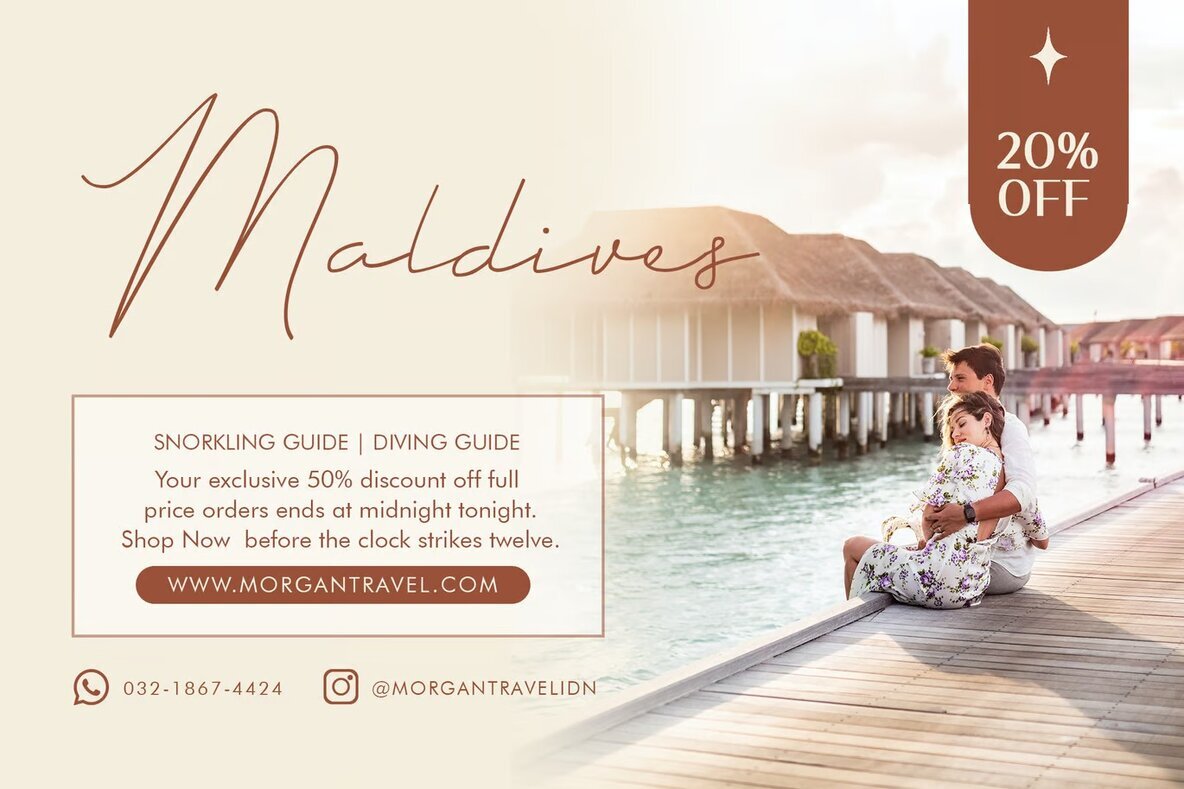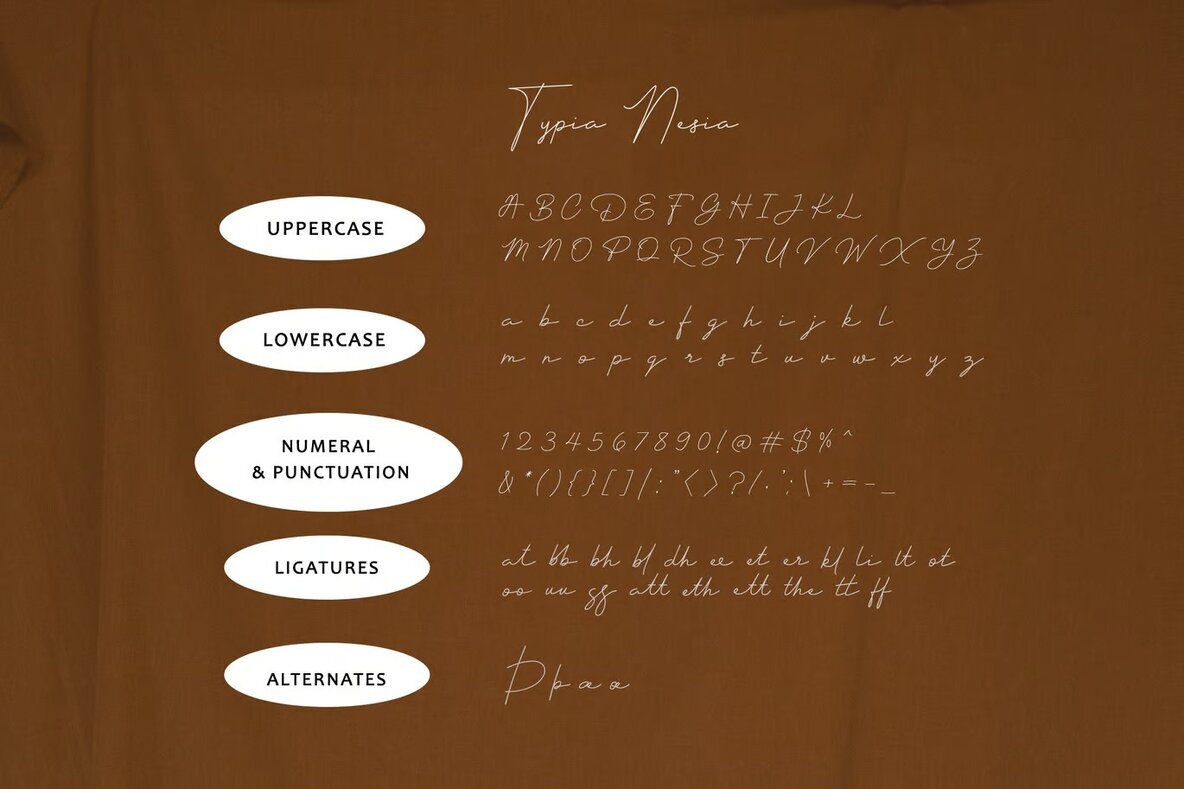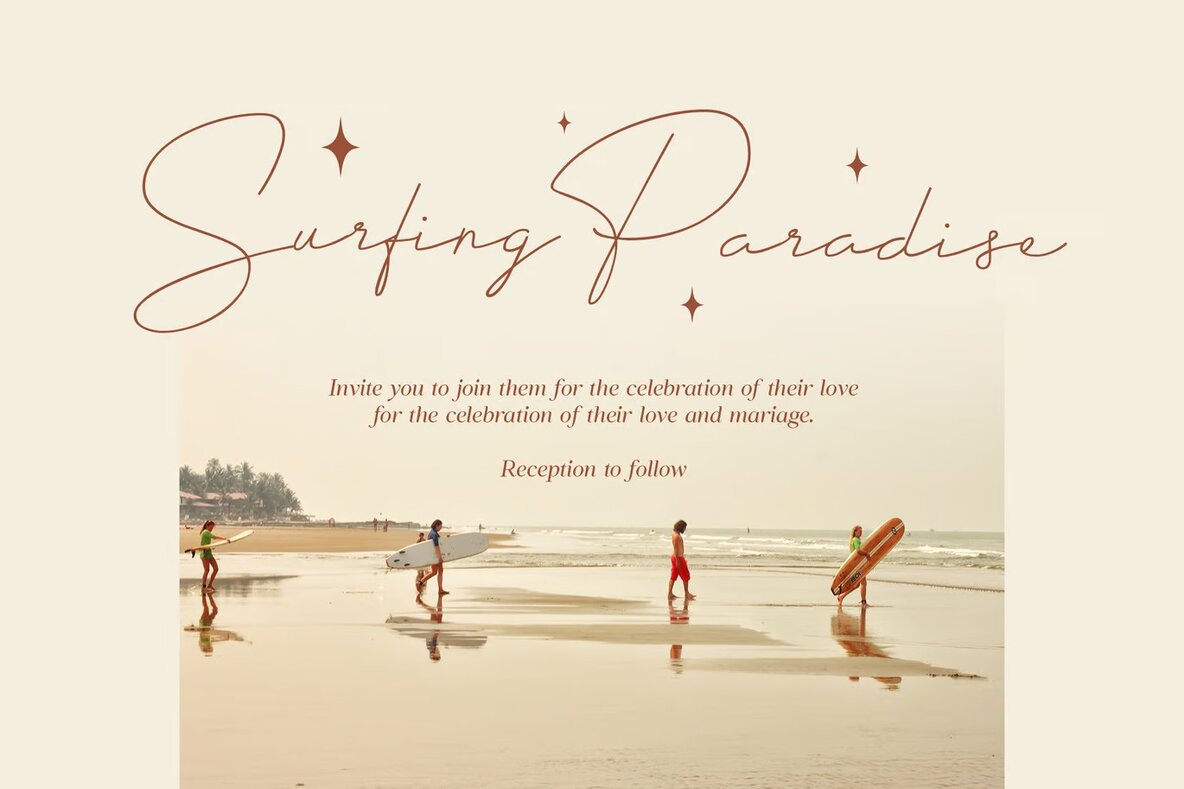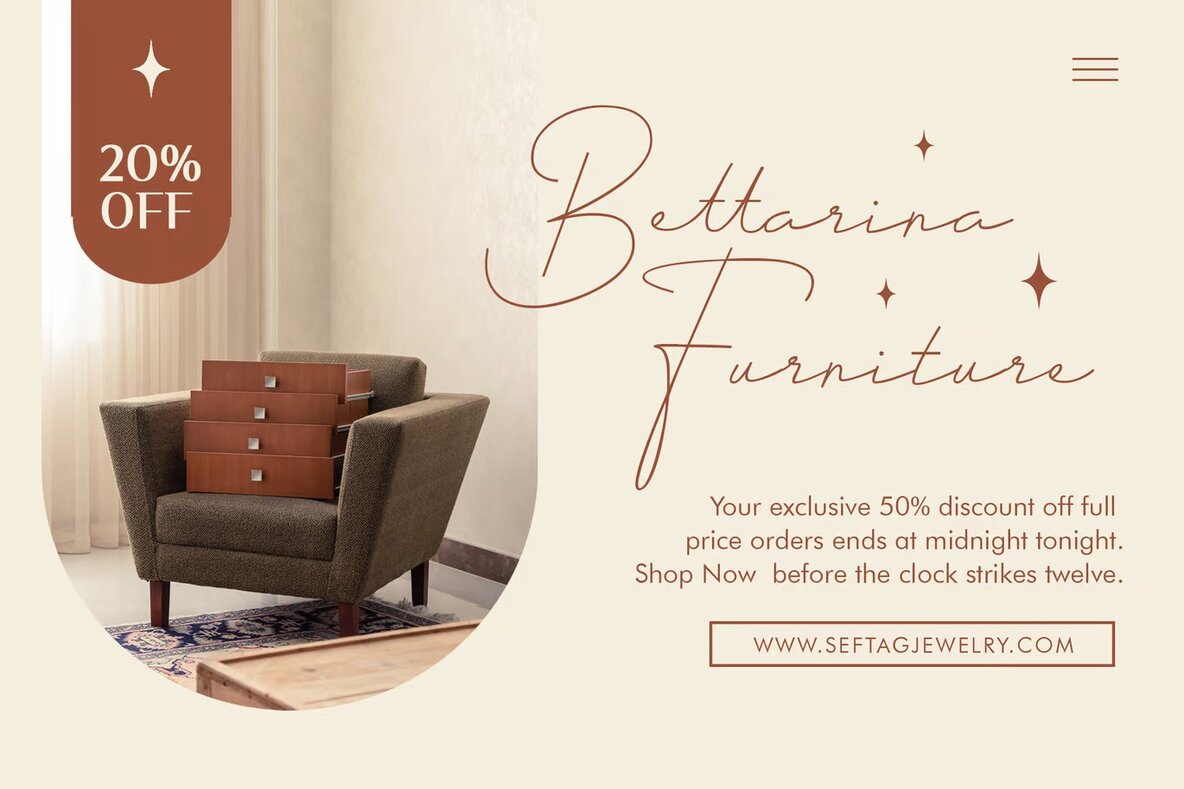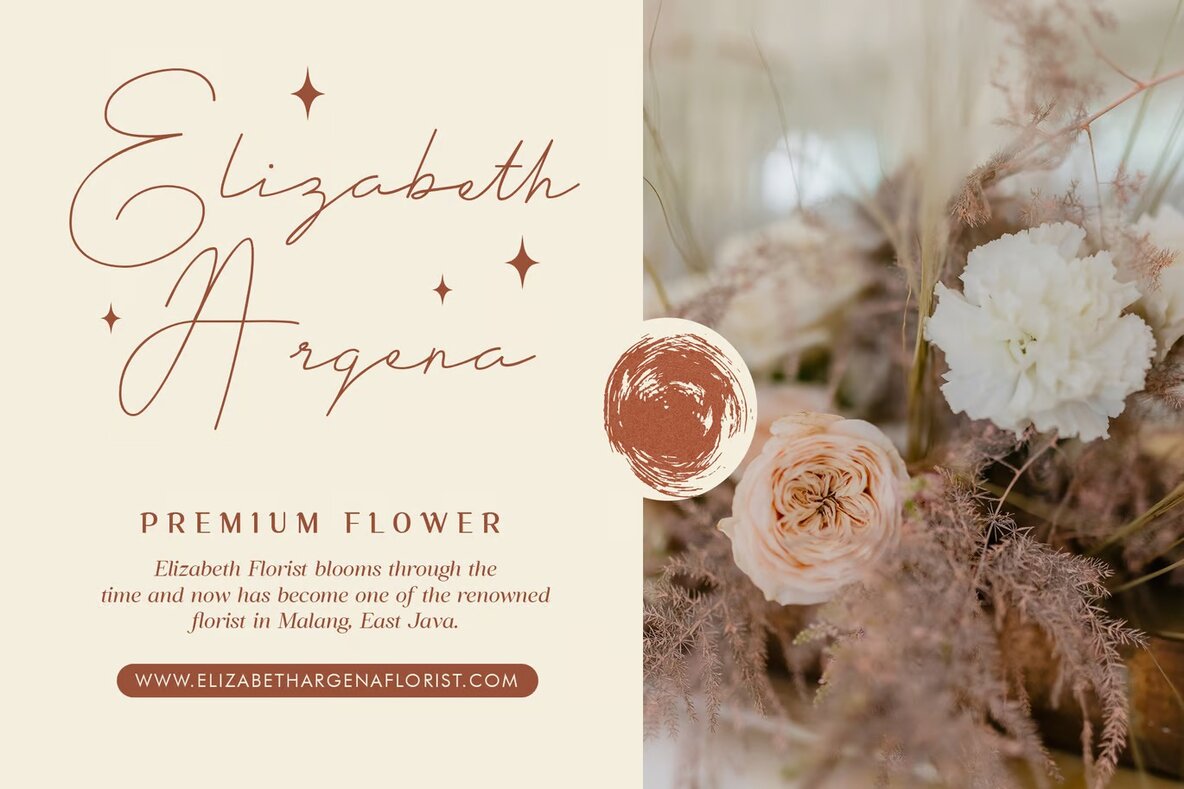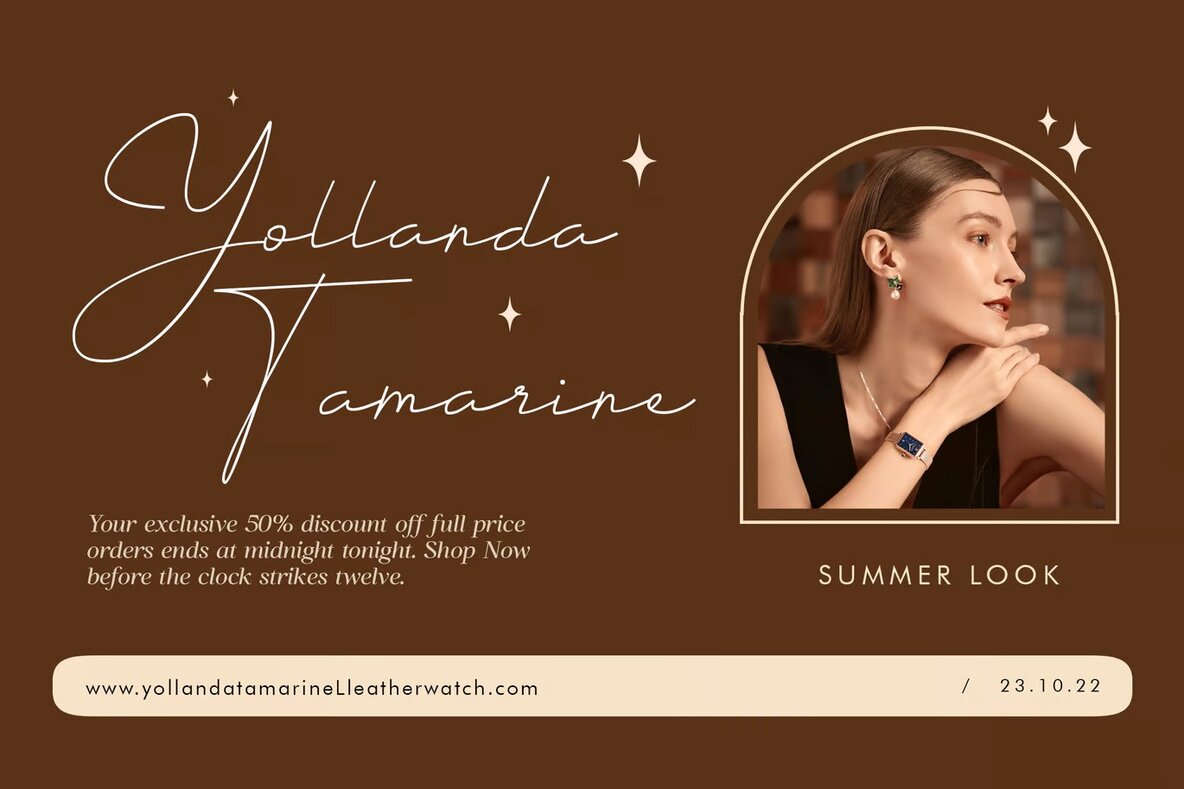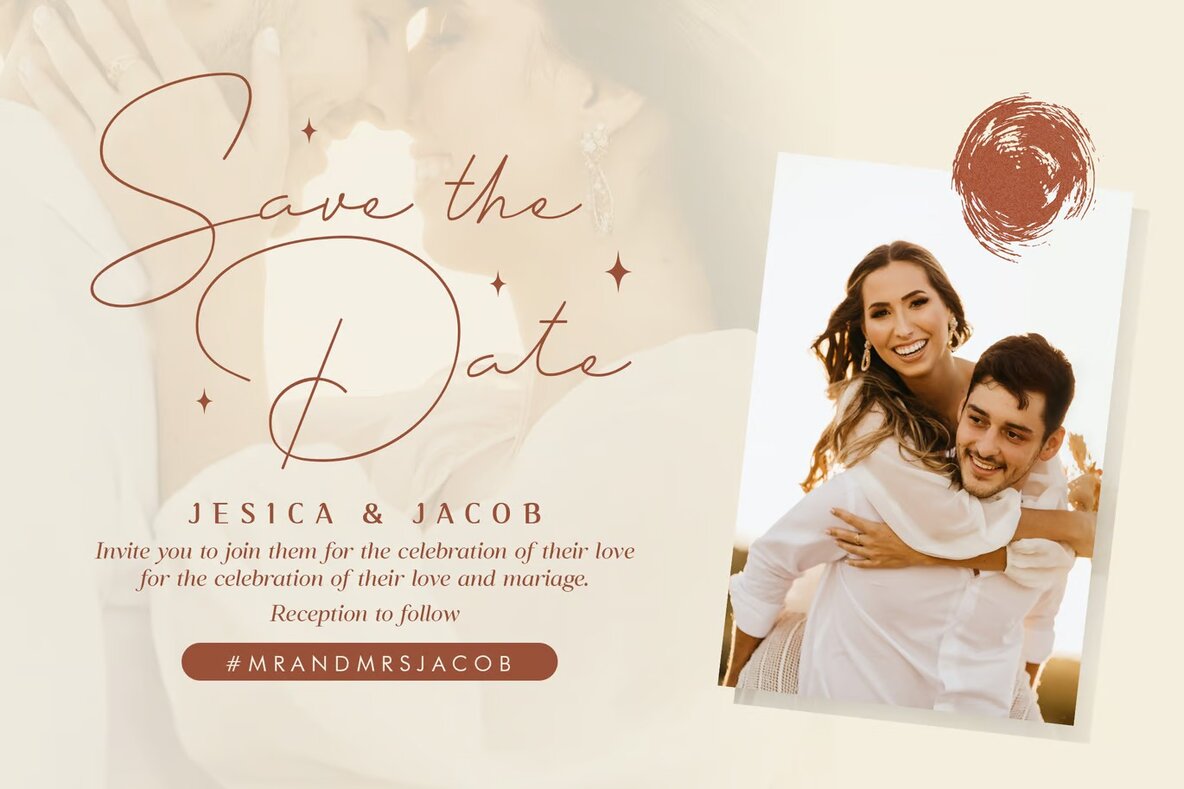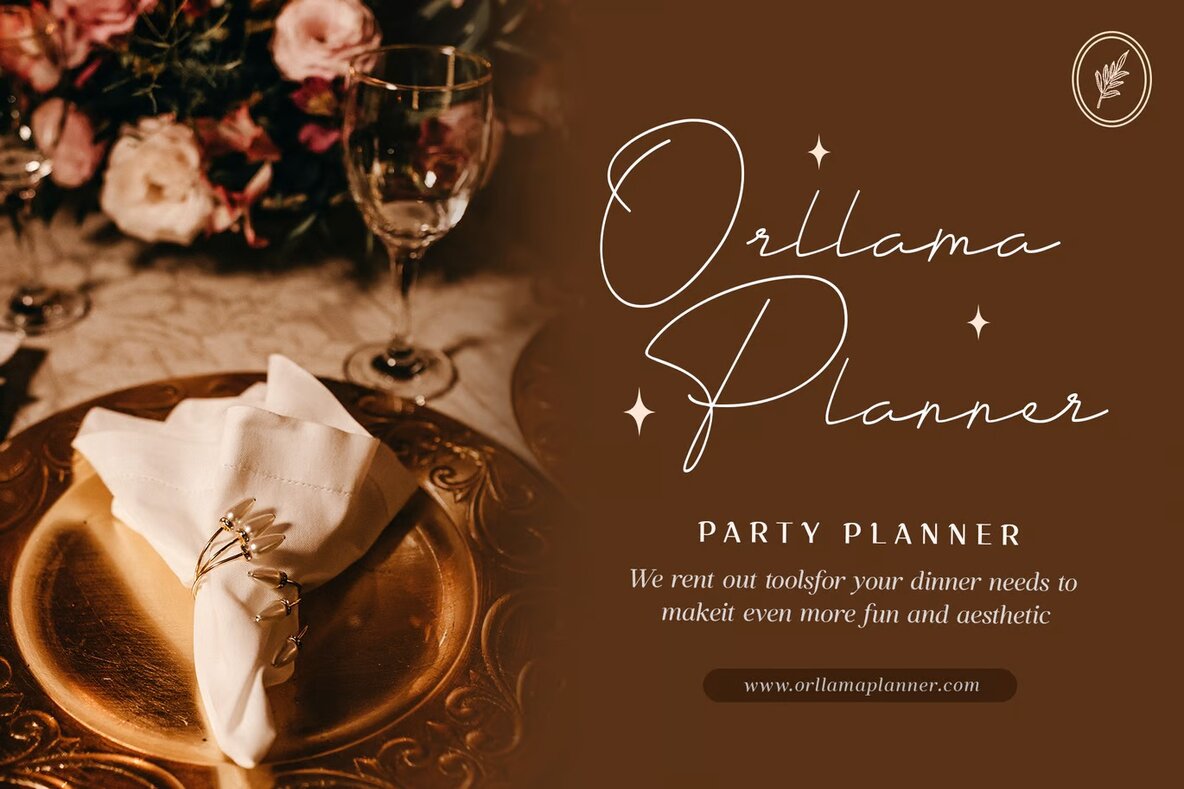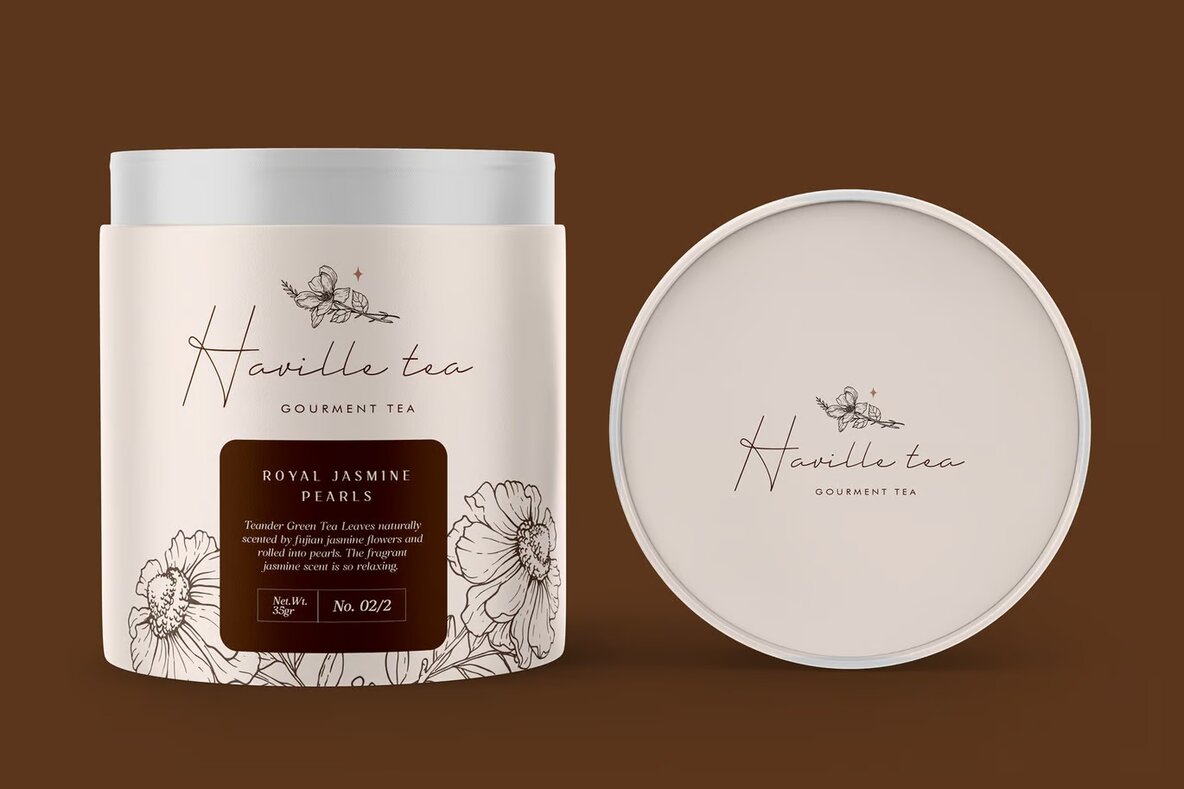
This elegant script font features a decorative and handwritten style with flowing, artistic flourishes. Its cursive and stylized design makes it perfect for chic and formal projects such as wedding invitations, branding, stylish headlines, headers, and unique logo design.